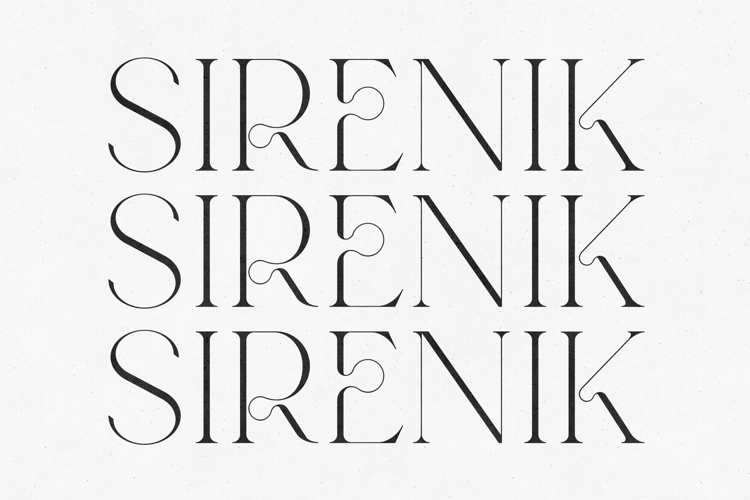
Sirenik Serif Elegant Modern Decorative Typeface
Sirenik is a modern decorative serif font that blends elegance with artistic expression. Featuring refined letterforms and unique ligature details, it creates a distinctive visual rhythm that stands out in contemporary design.
With its delicate contrasts and subtle ornamental touches, Sirenik is crafted for designers who want more than a standard serif. It brings character and sophistication while maintaining clarity and balance across compositions.
Perfectly suited for editorial layouts, branding systems, and statement typography, Sirenik delivers a refined aesthetic with a creative edge.
• Unique ligatures
• Decorative serif details
• Elegant high-contrast style